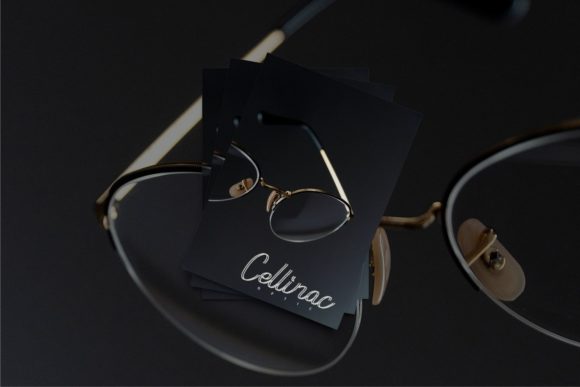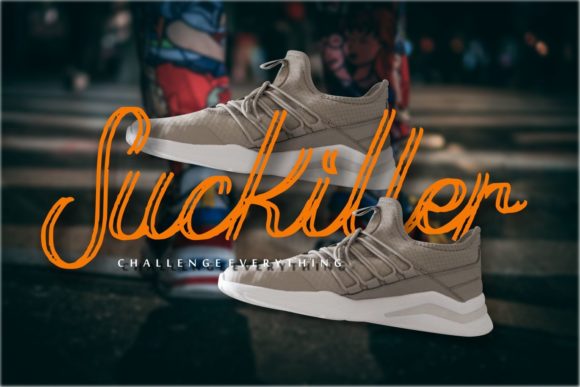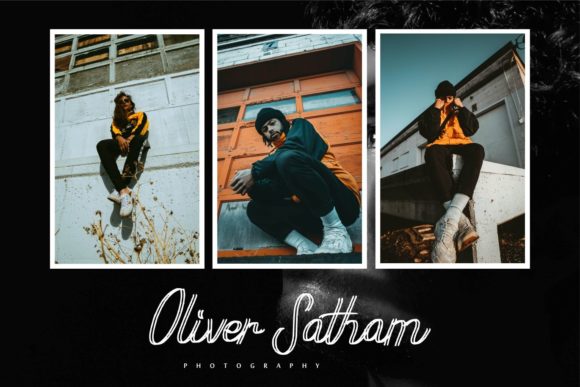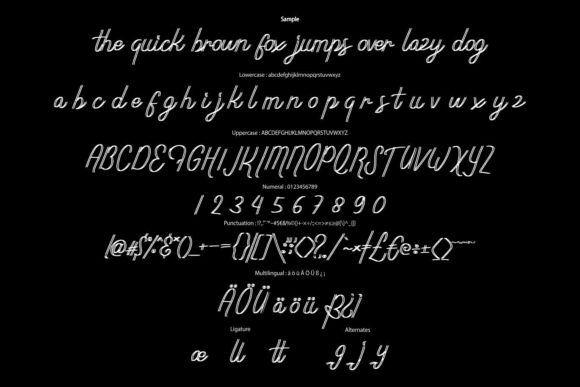
Anthalec Script Font
About Anthalec Script Font
Anthalec Script is a beautiful, brushed and vintage styled script font. It is defined by smooth curves and is perfect for fashion branding or editorial designs. Add it confidently to your projects, and you will love the results.